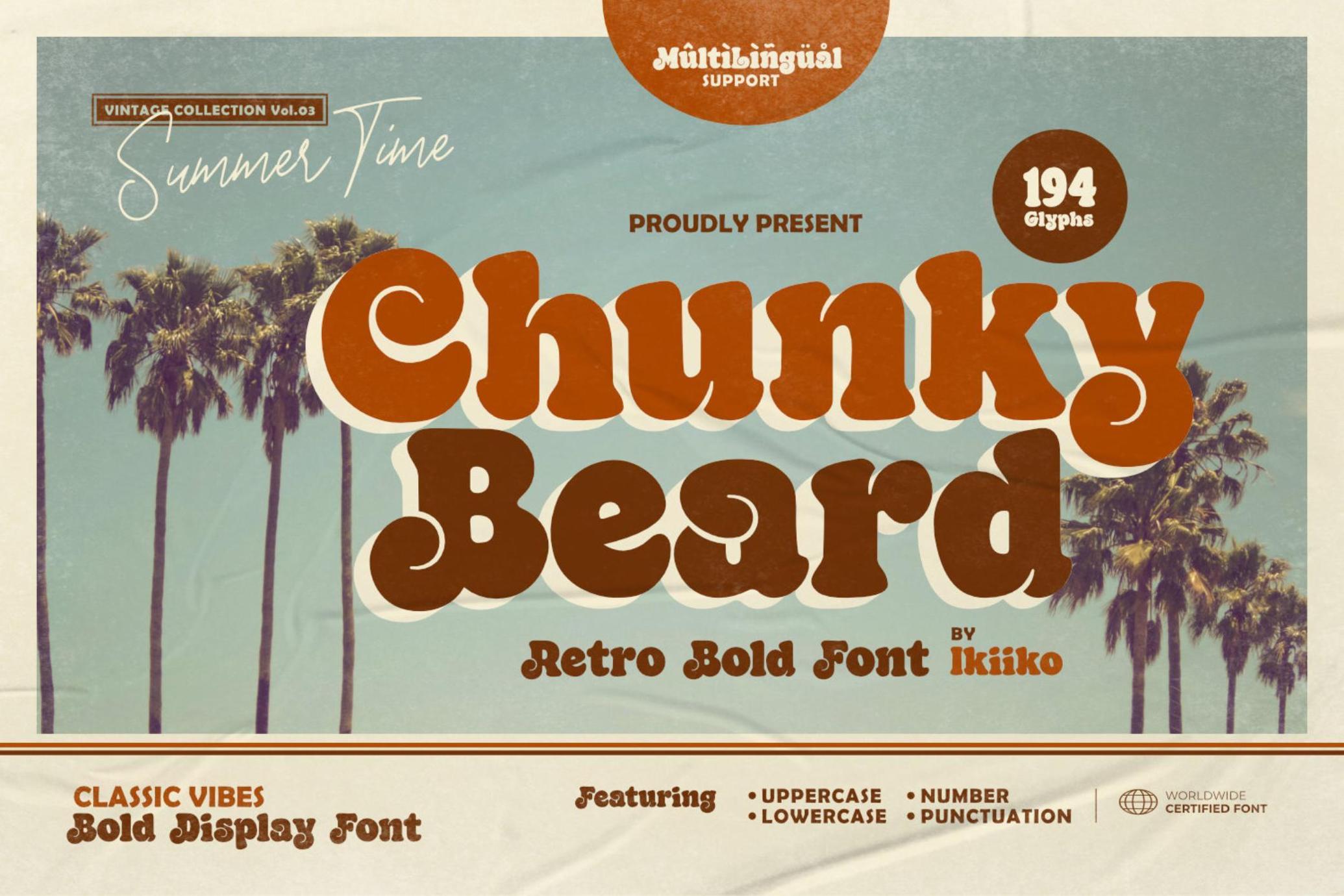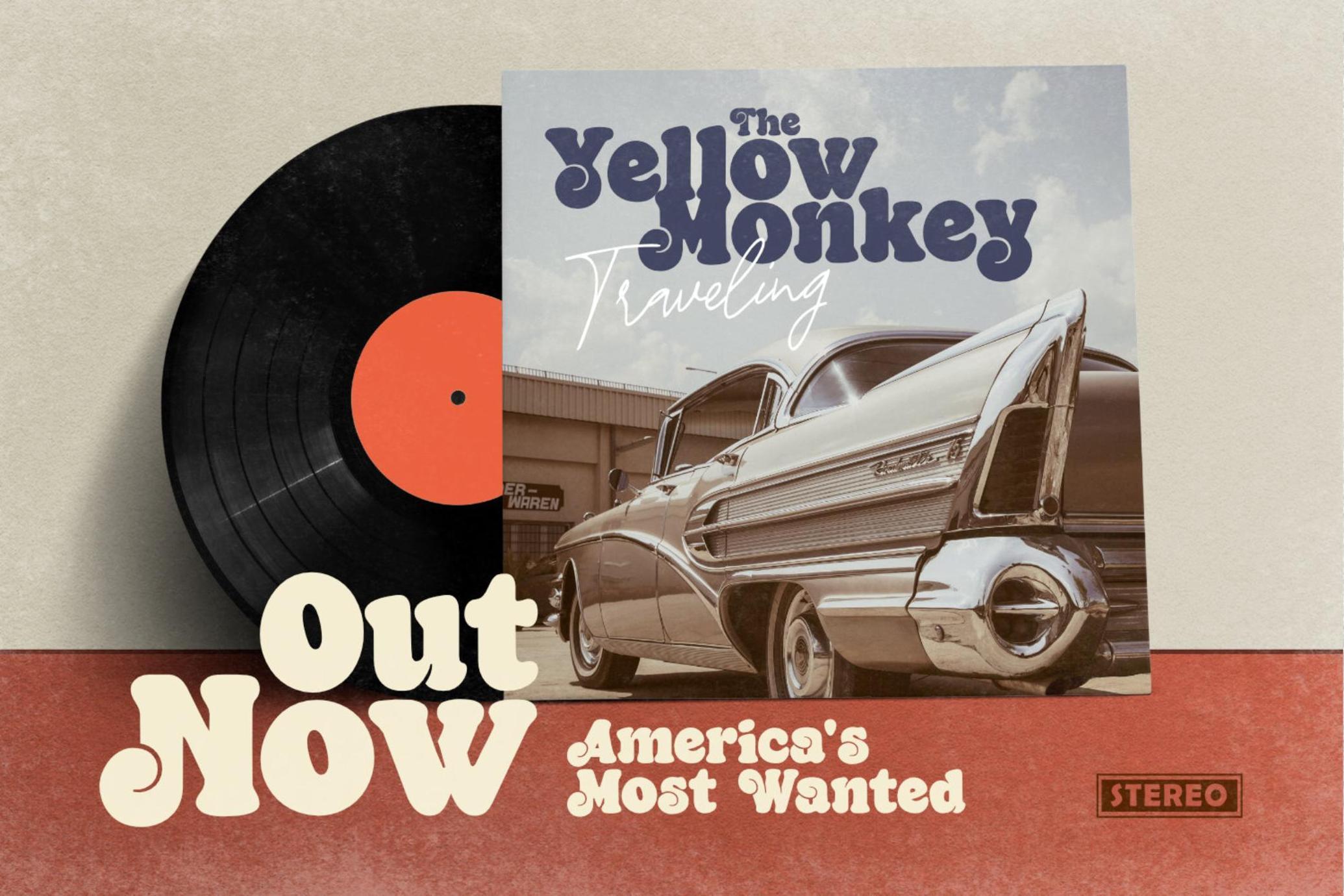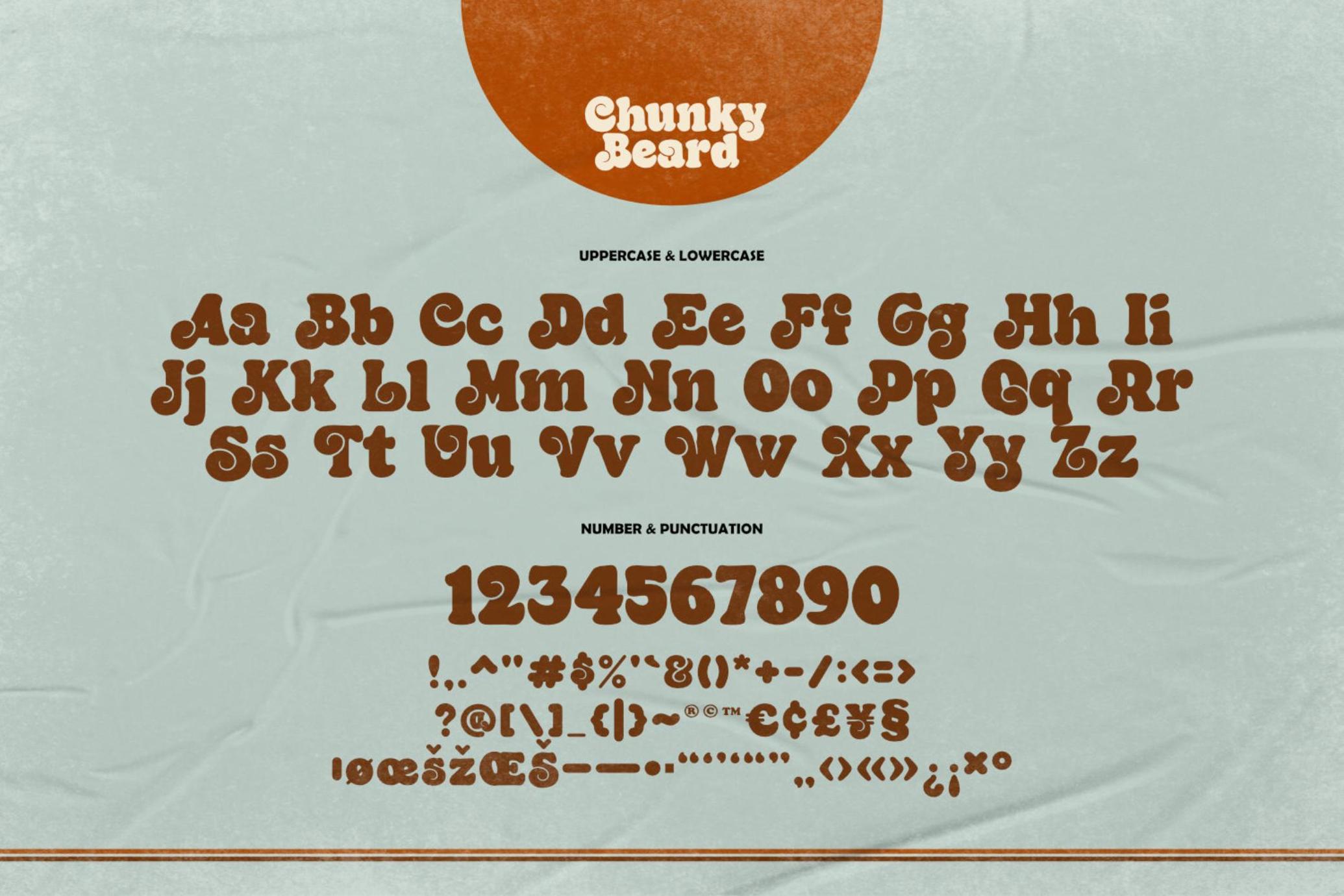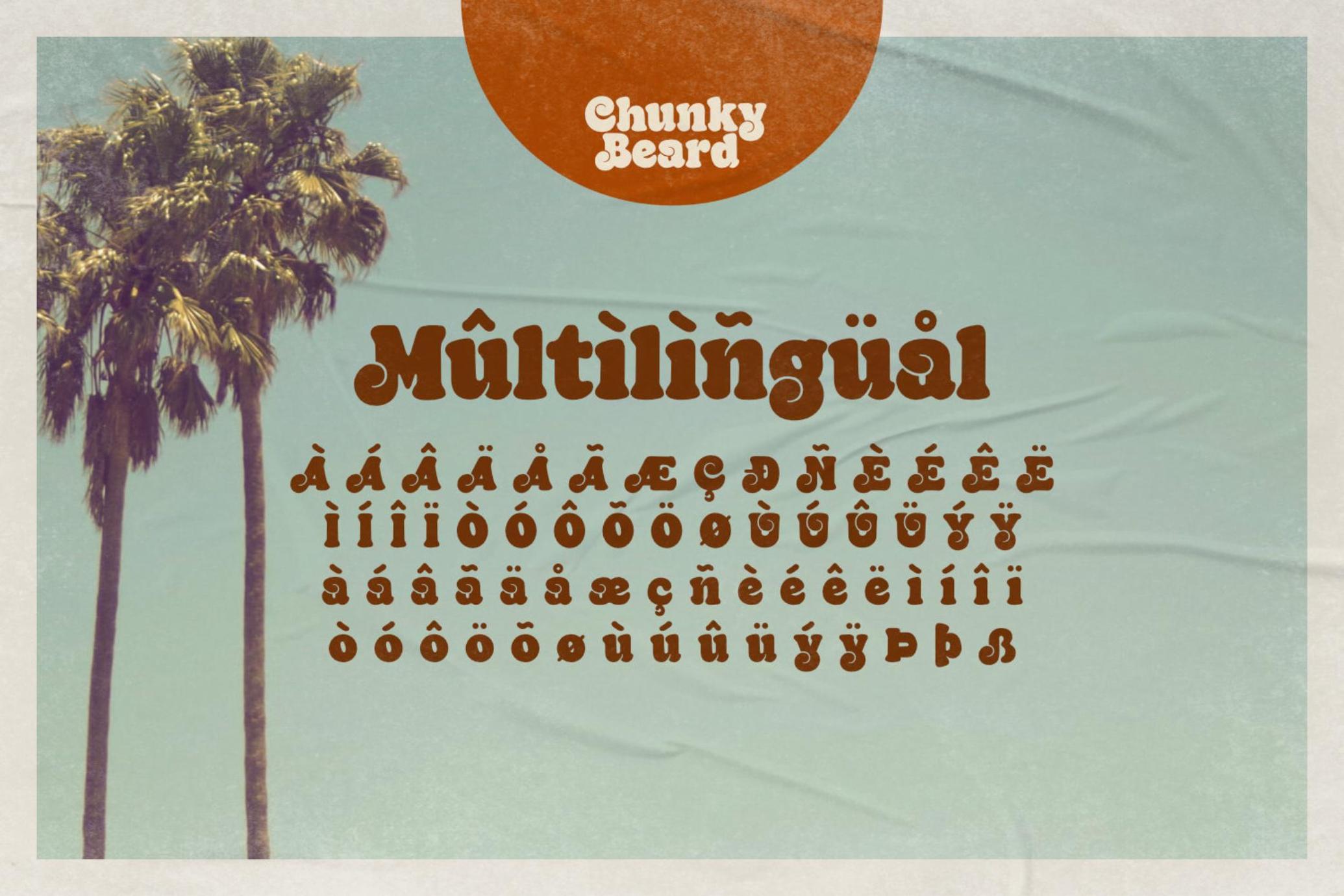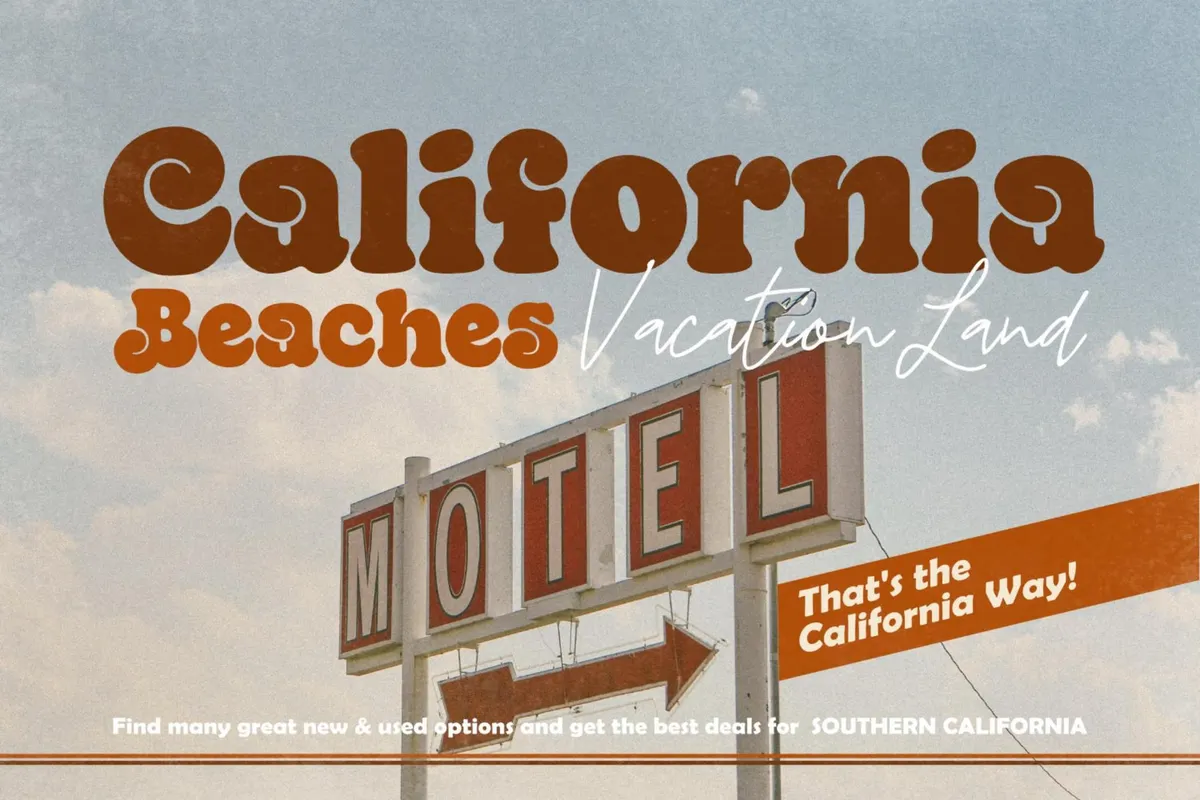
Chunky Beard - Retro Bold Font
ChunkyBeard
Chunky Beard is a vintage font with bold, rounded letterforms with vintage vibes from the 60's era. These fonts often have heavy, wide strokes and lack clear borders, giving them a warm and inviting appeal. Rounded edges, exaggerated curves, and exaggerated serifs are some of the characteristics of 60s vintage-type typography . Additionally, they often have very constant stroke weight across letters, further accentuating their distinctive appearance.